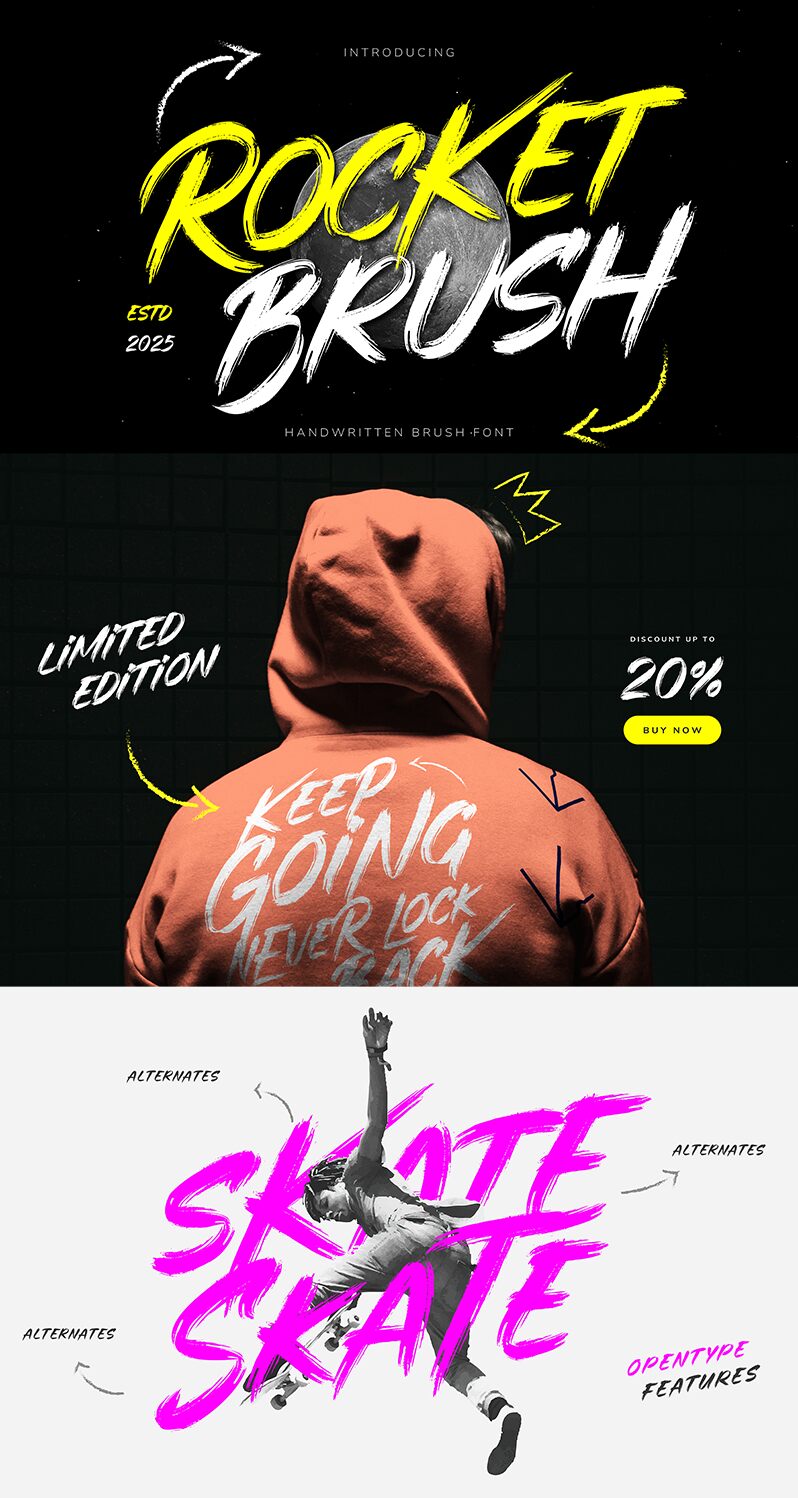
Rocket Brush font by Namara Creative is a brush font whose artistic edges are obvious in every design including the first and last letters. A dynamic brush with an energetic feel, Rocket Brush offers urban vibes that can clearly be seen in its bold chaotic pen strokes. So be as expressive as ever and take your viewers on a visual adventure with this font.
From musicians to gamers, both professionals and individuals can enjoy this font and use it for book titles and covers or game designs. With every letter flowing into another, Rocket Brush can be used for fun big display projects like poster designs, or even smaller ones like business cards and invitation cards. And with its graffiti-like style, using it for ads and social media posts brings an unconventional modern touch to the design.
Unleash a surge of creativity with Rocket Brush, a handcrafted brush font that pulses with raw, energetic style. Each letter is infused with dynamic strokes and a bold character, making it the perfect choice for projects that demand attention and personality.